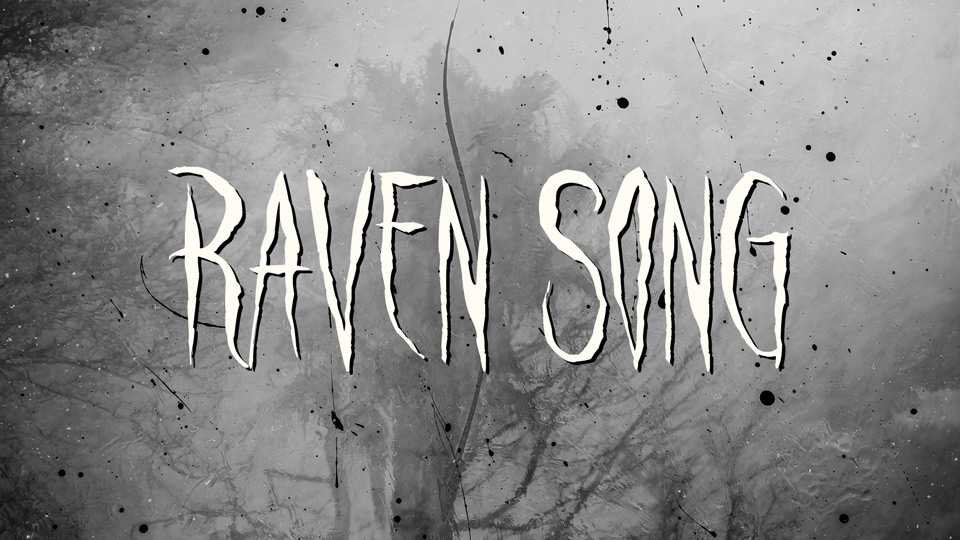
Download Raven Song font, a typeface that will send shivers down your spine with every letter. Raven song font is ideal for designs that need to plunge into the depths of horror and suspense.